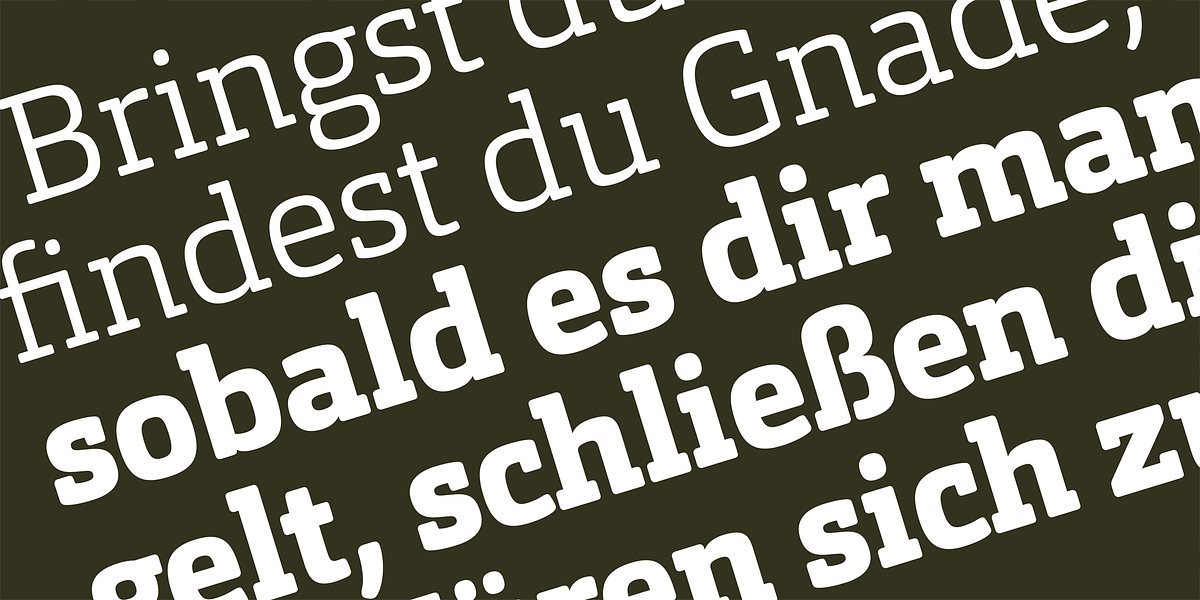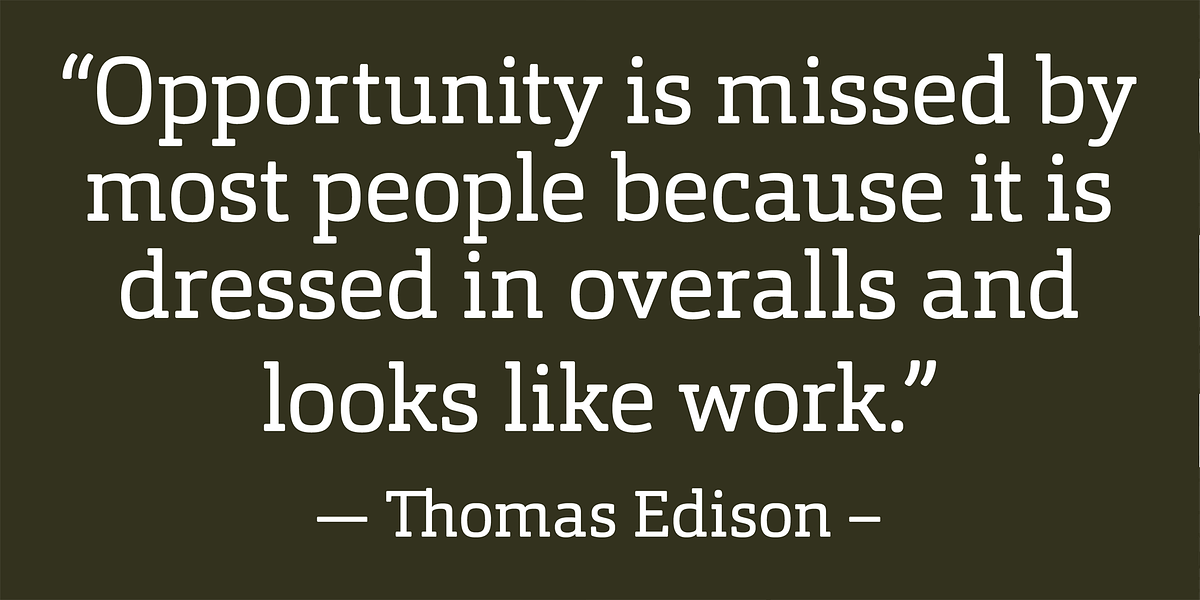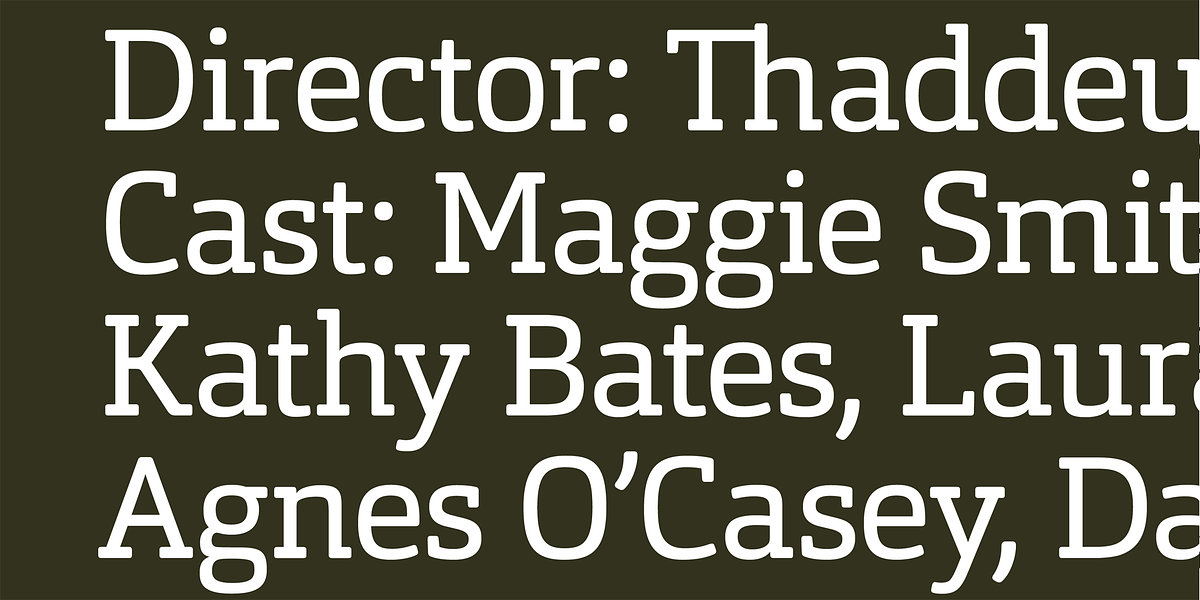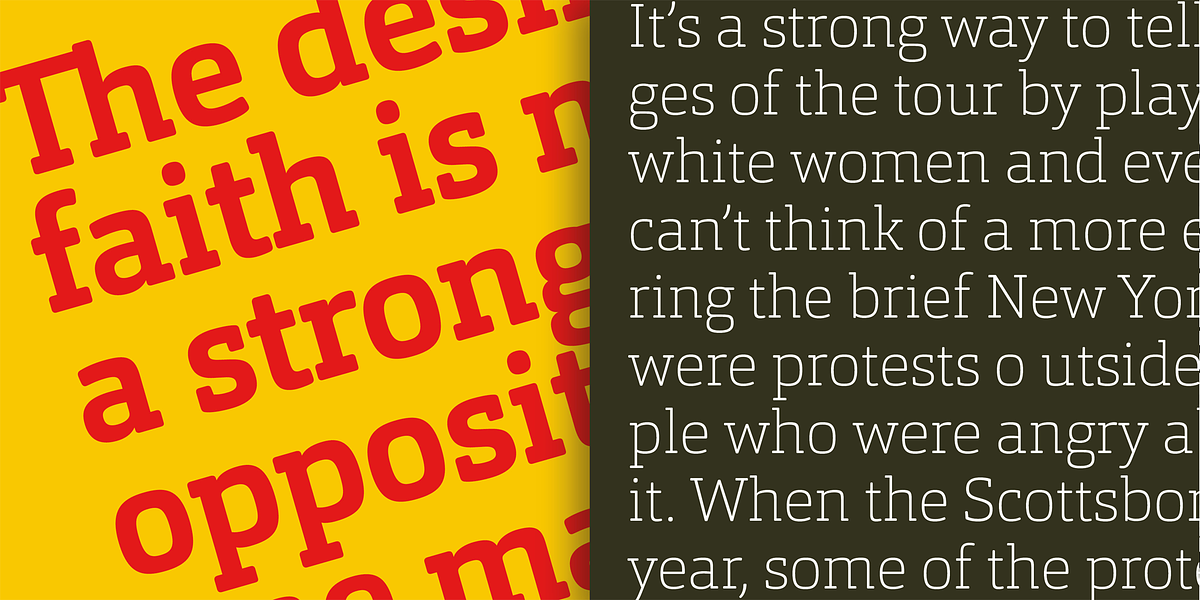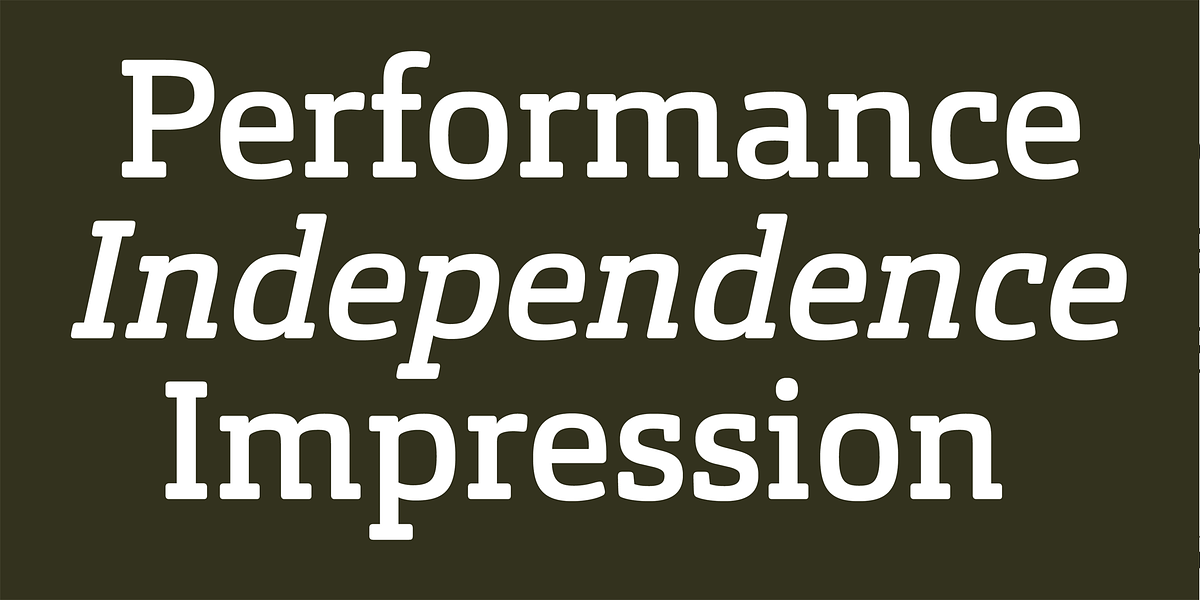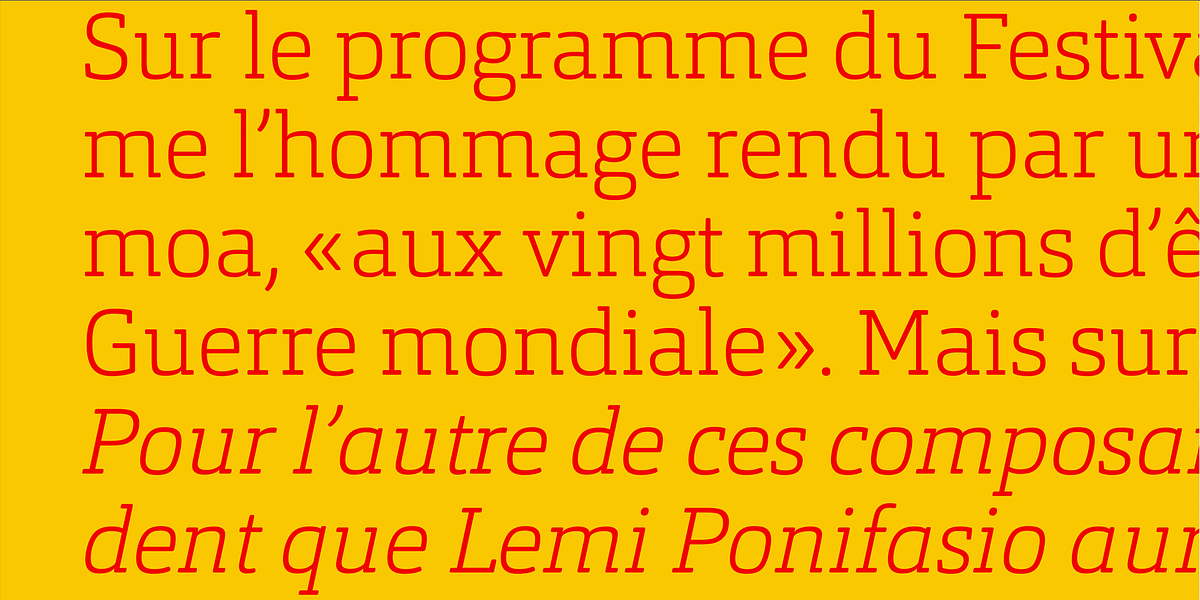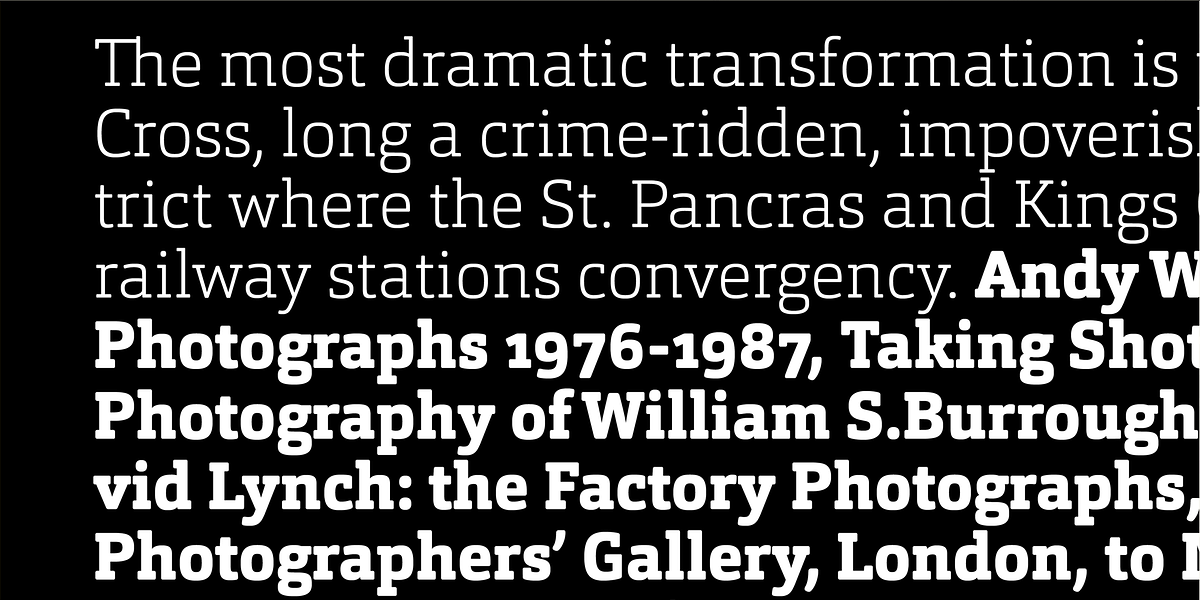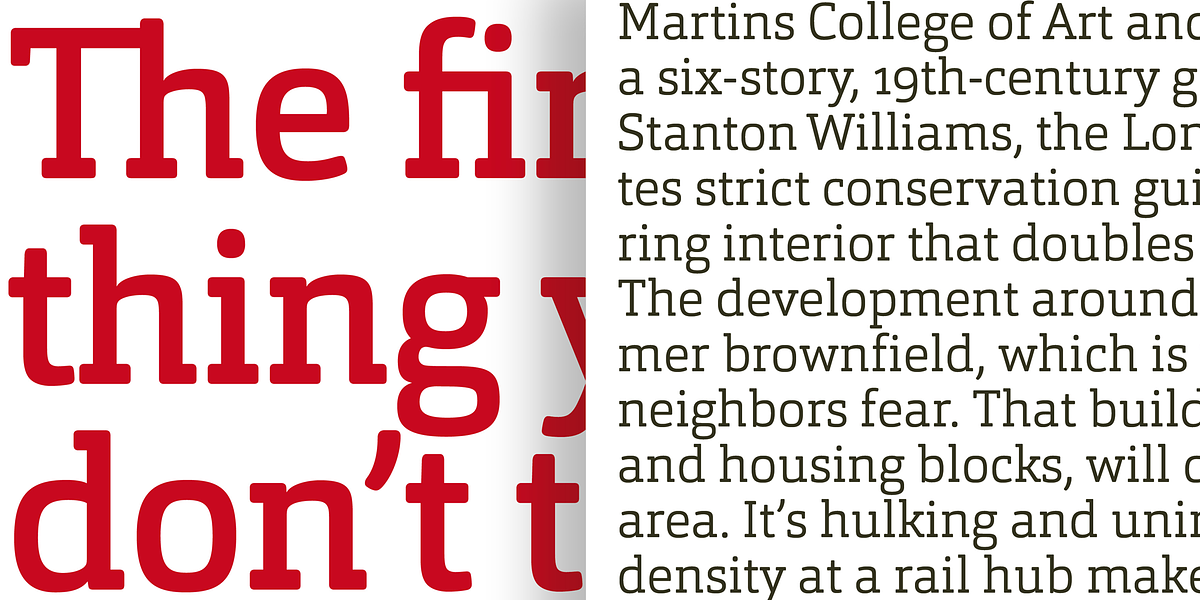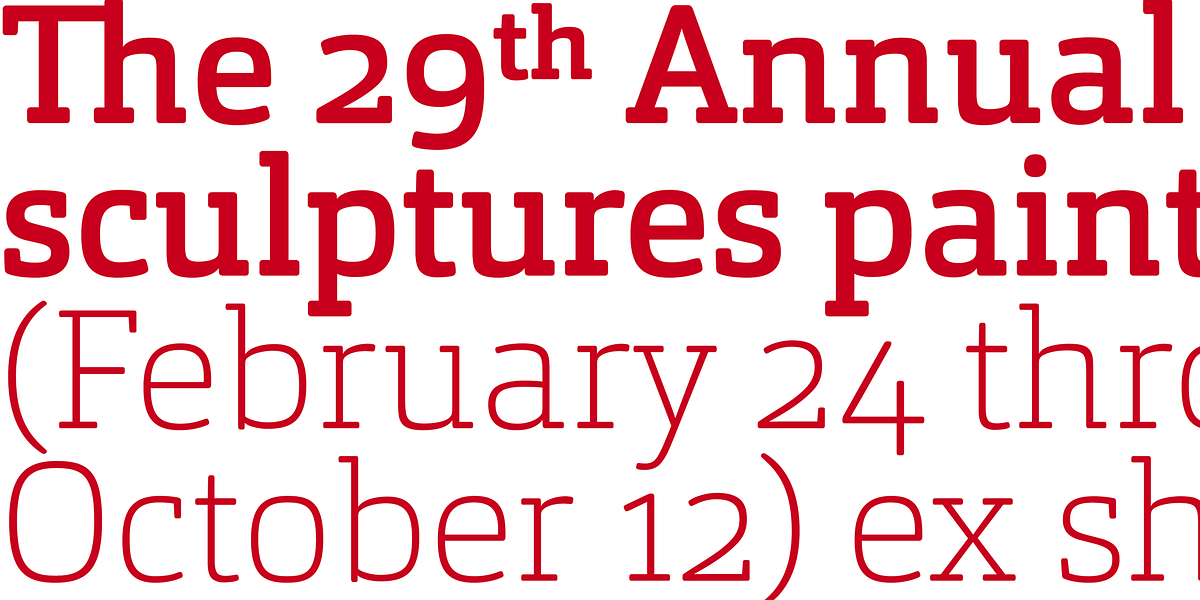
Orgon Slab
Orgon Slab is a square slab serif font designed for readability in both desktop and web applications. It comes in 16 styles with extensive OpenType features including ligatures, small caps, various numerals, currency symbols, and arrows.